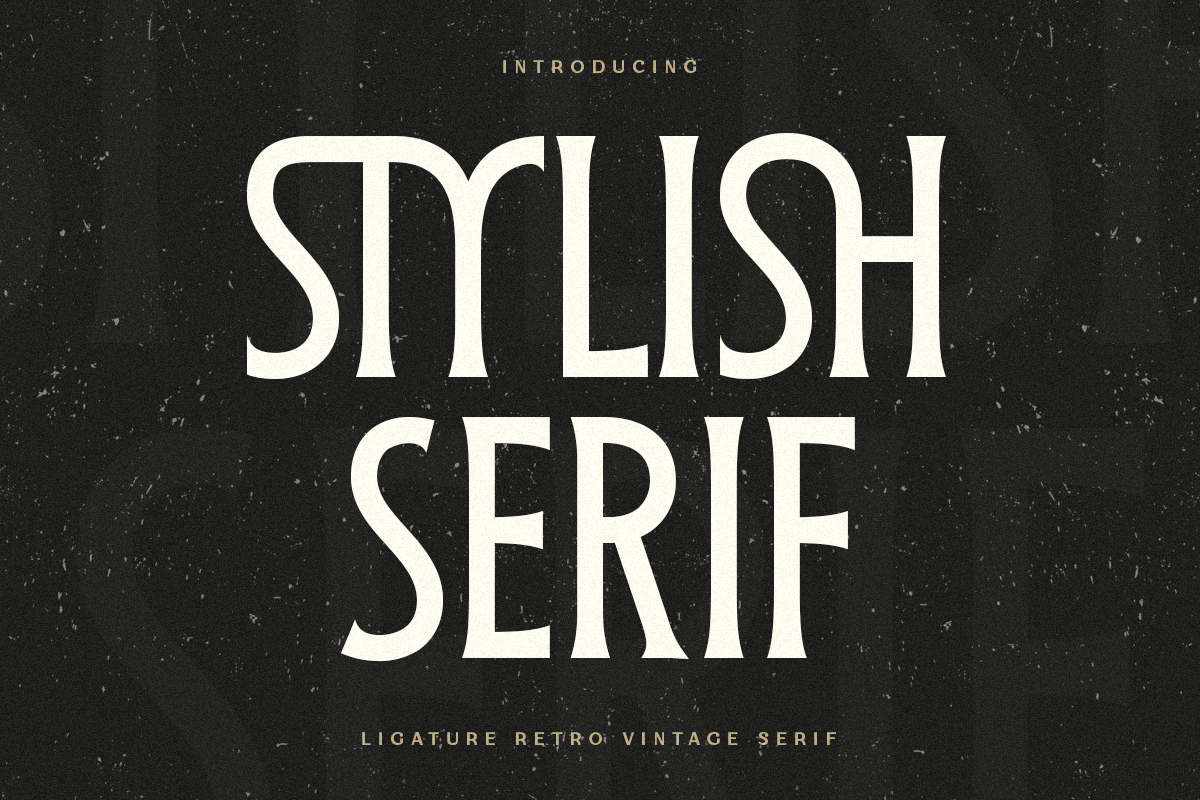
Stylish Serif
Stylish Serif is a Modern Retro Vintage Serif Font that we created special for Display, Logo and Branding
A new Serif font that is nice to leverage designer or product owner that need solutions to make their design look more gorgeous and vintage. And specially for this font, We prepared any characters to help you create gorgeous for your creative needs specially for headline, and typography needs.
Stylish Shape to get creative